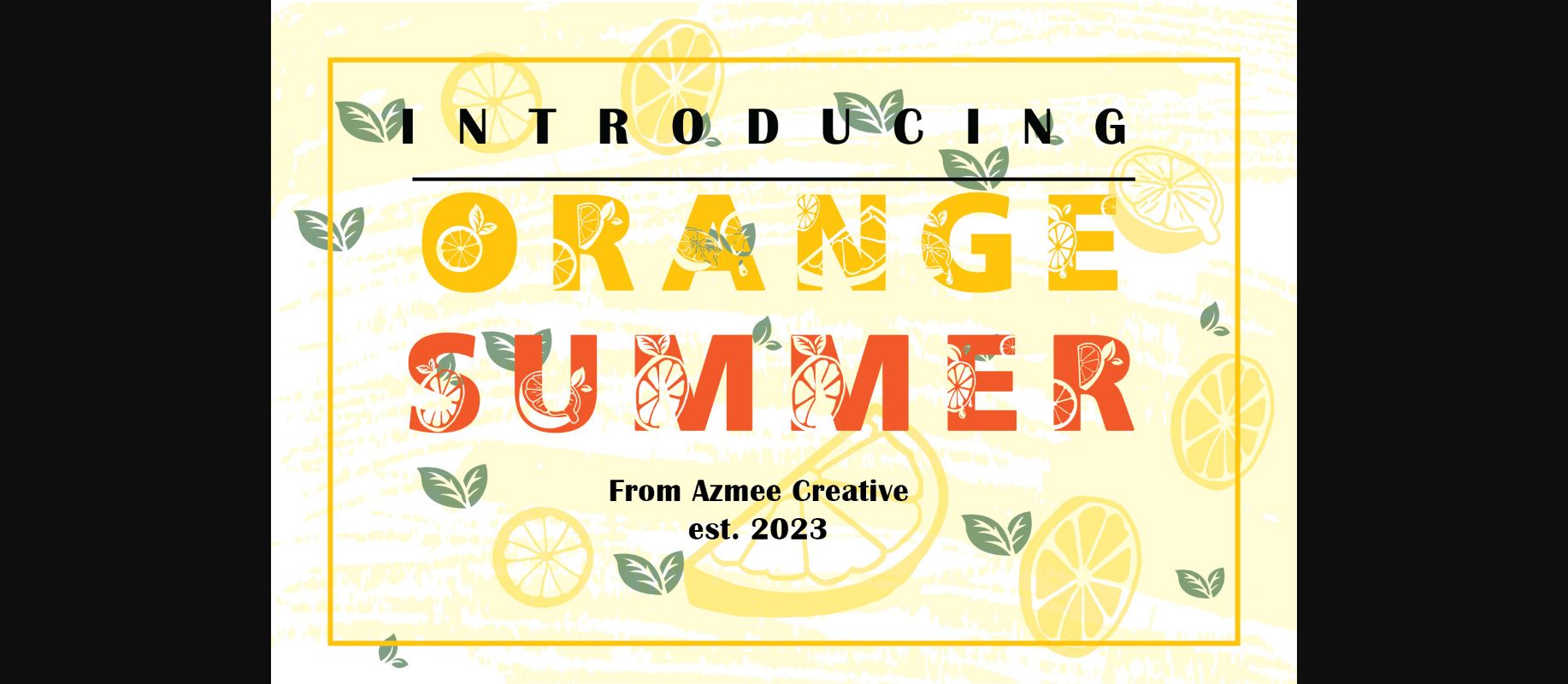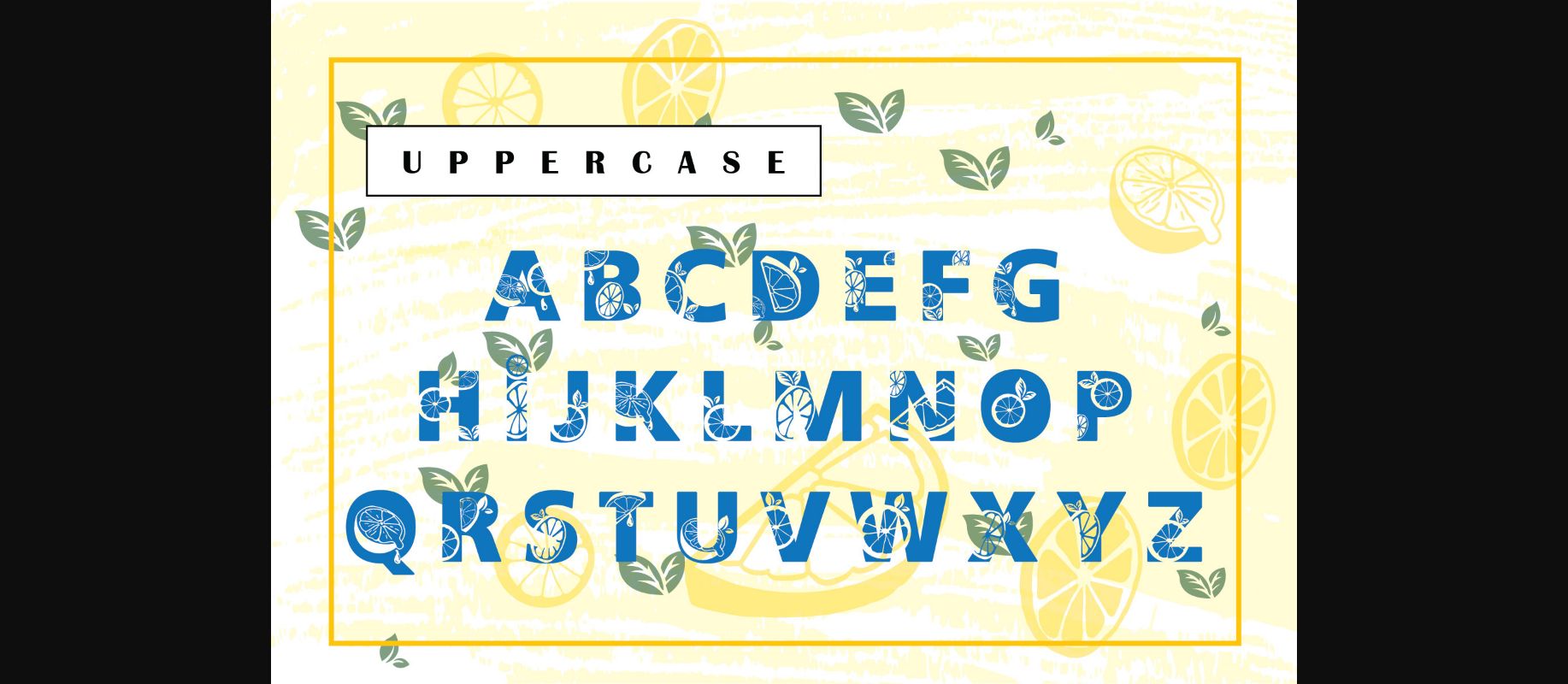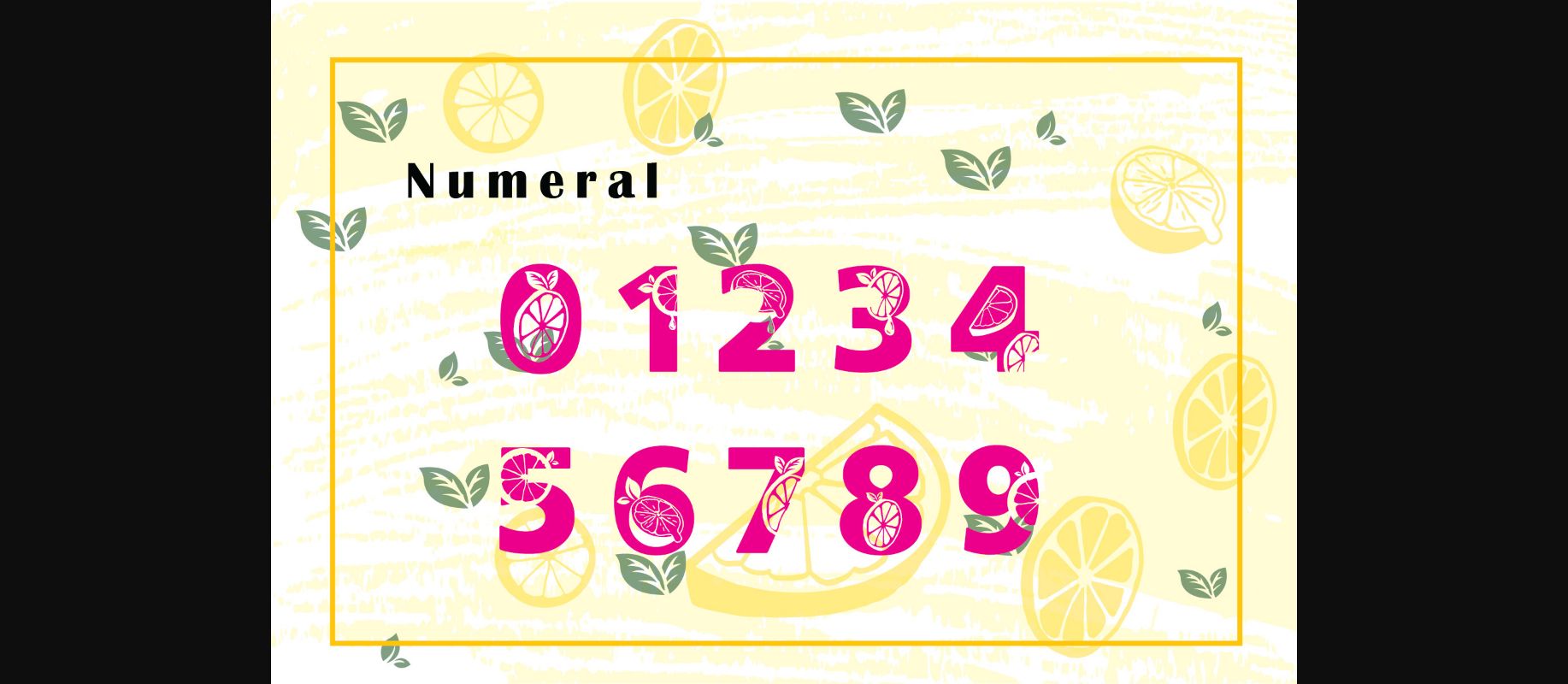
About Orange Summer Font
Orange Summer is a cool and thick lettered decorative font. It will look stunning on any poster flyer or print.
Use this font for your designs and your upcoming project! It looks nice on posters, flyers, t-shirts, quotes, and many more.